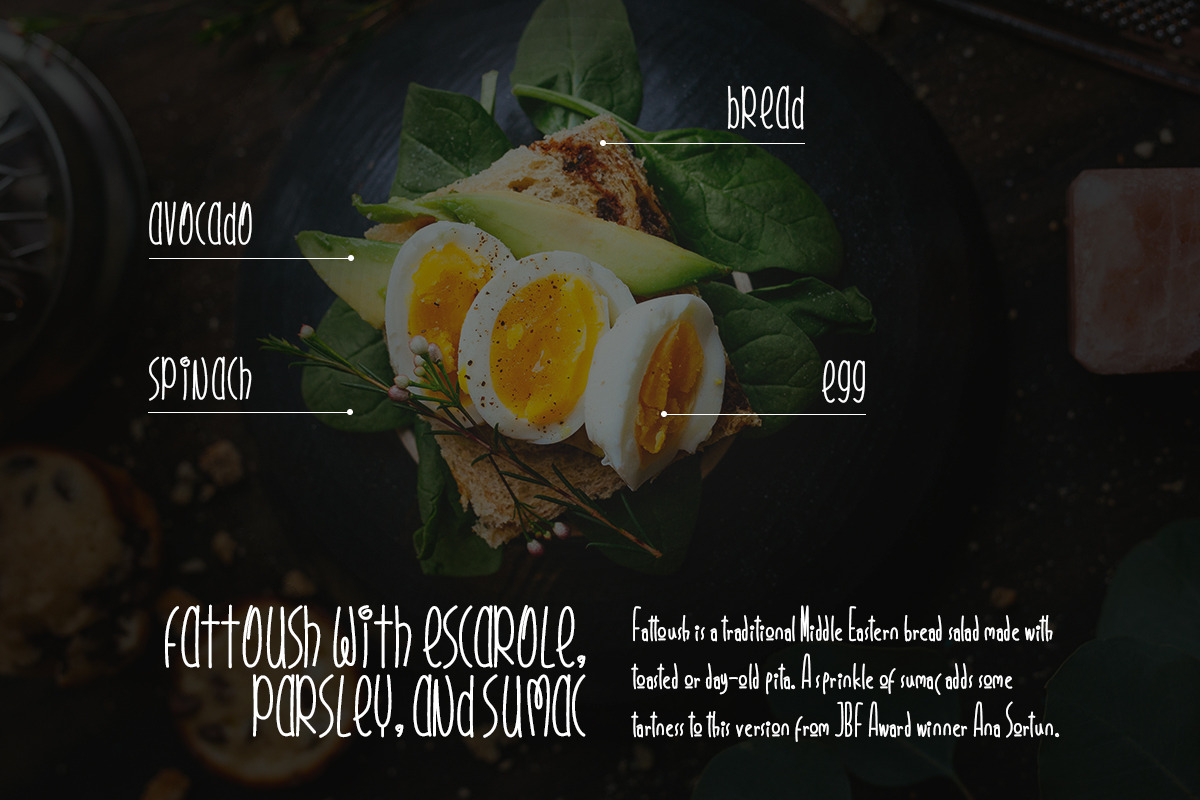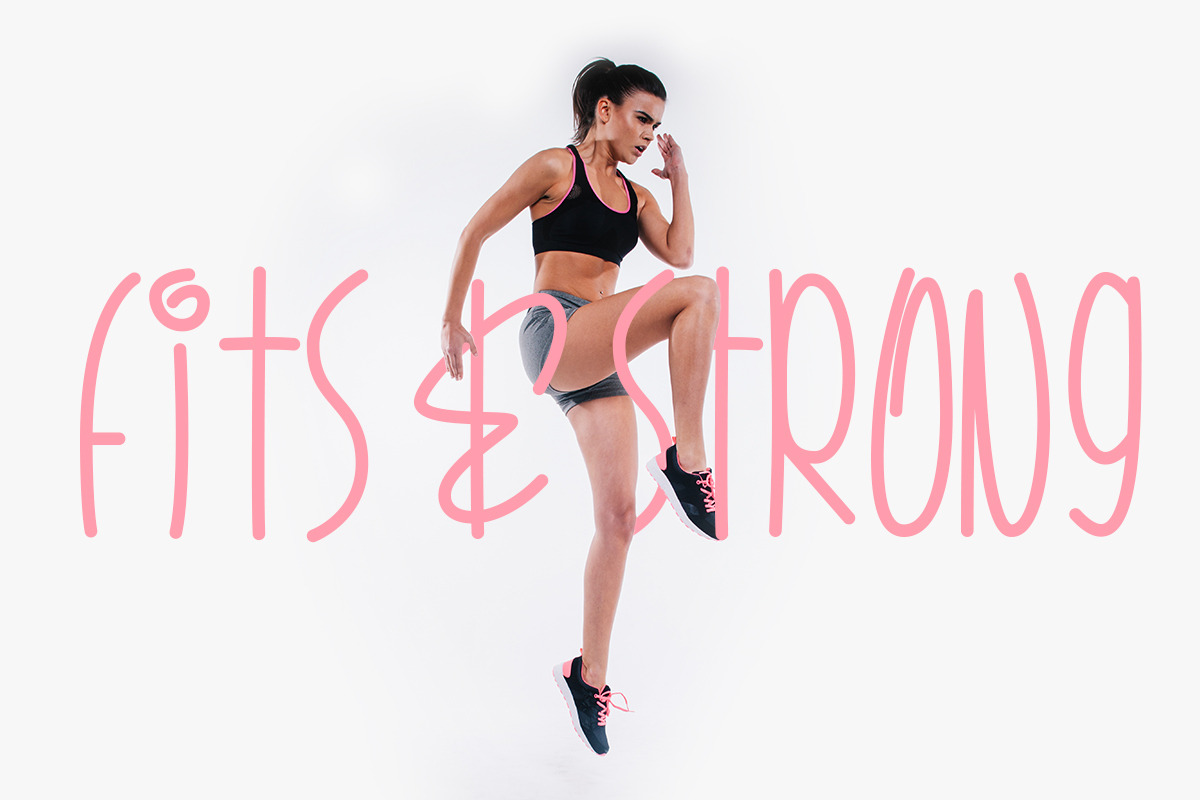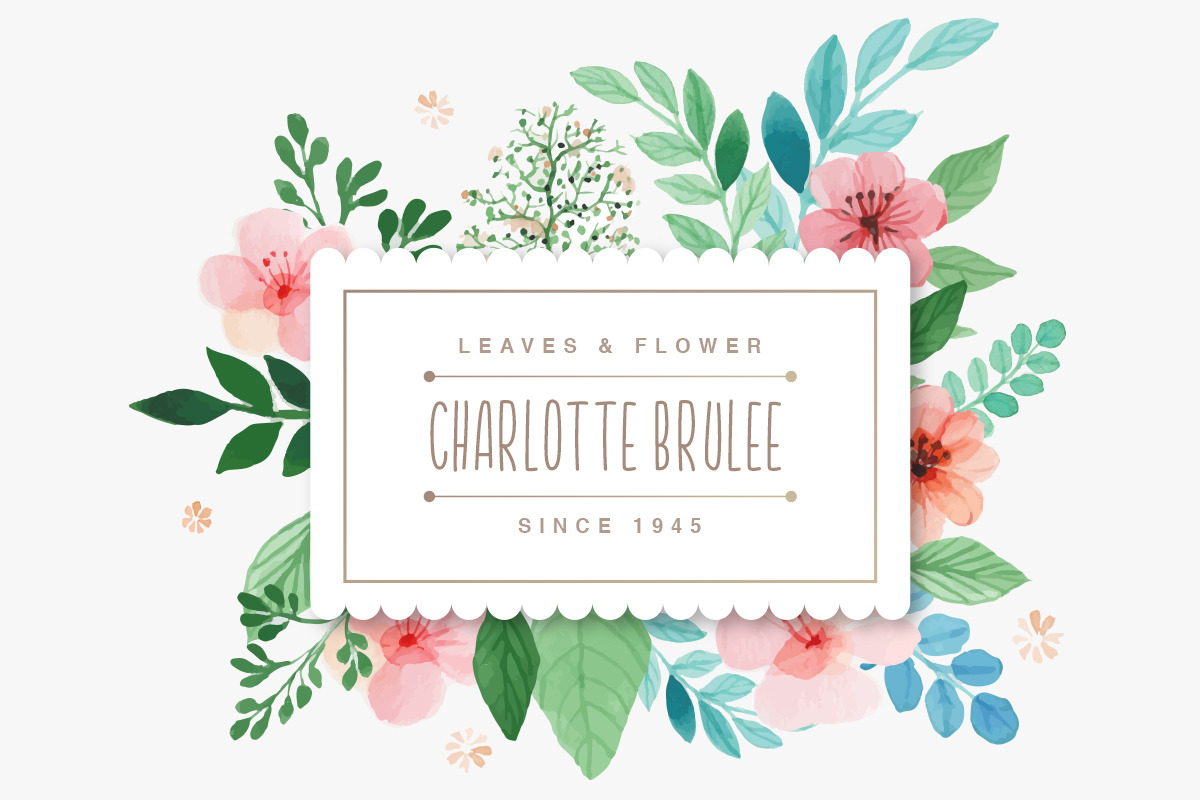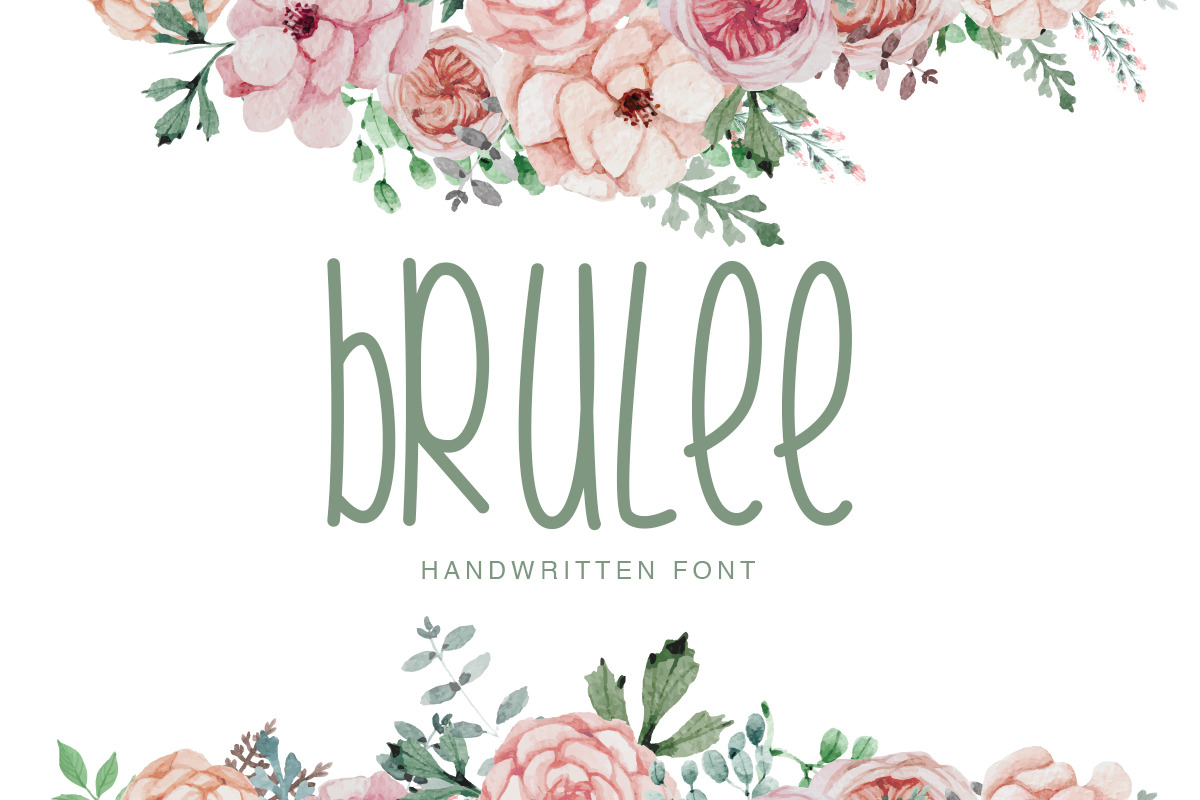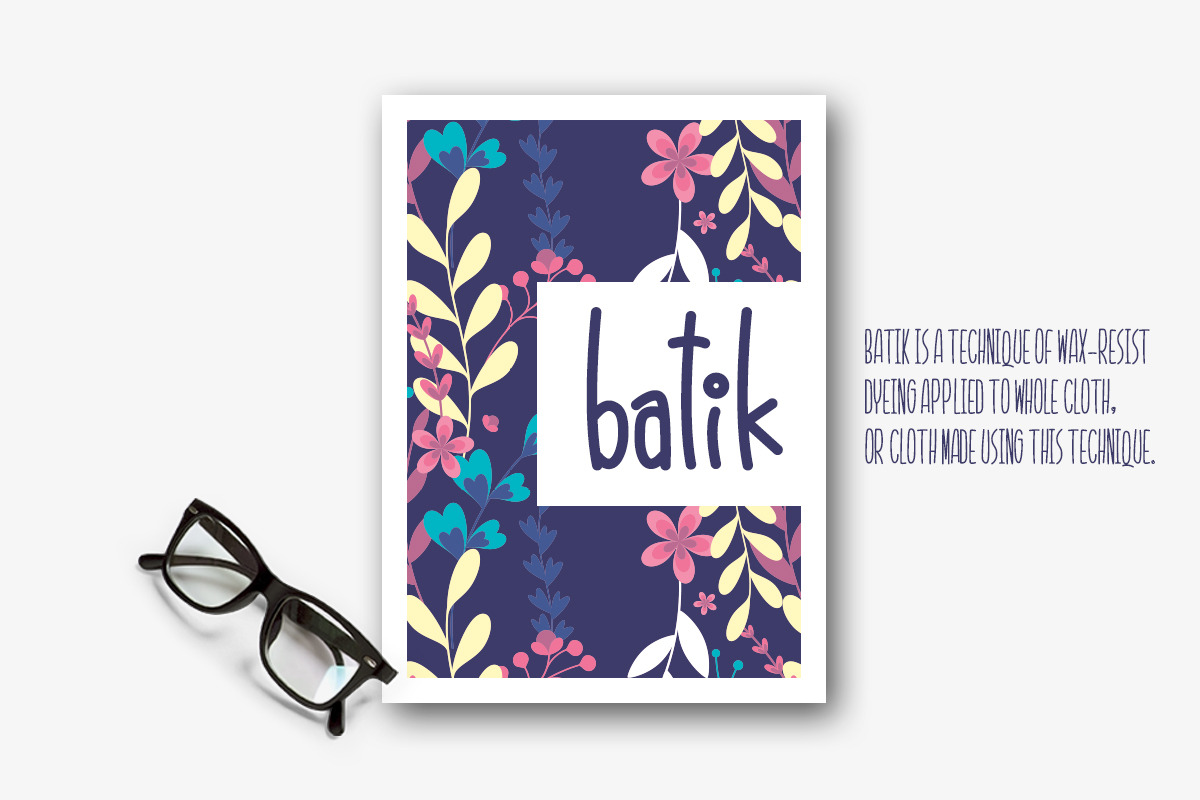
Brulee Font Duo
Brulee Font Duo by Factory738 Studio is a font selected for branding, posters, packaging, typography.
- Brulee Sans
- Brulee Script
Why Brulee Font Duo is worth a look
Brulee Font Duo by Factory738 Studio fits naturally into Branding, posters, packaging, typography.